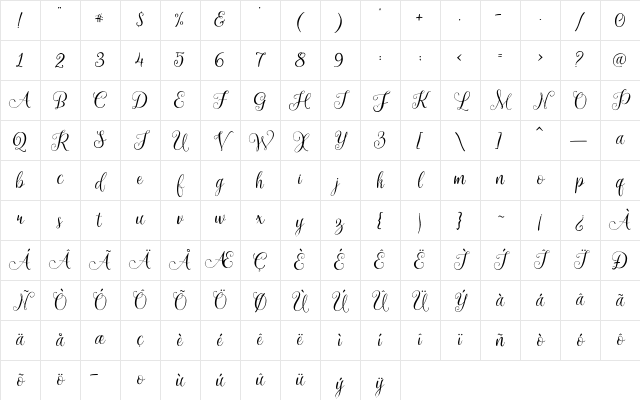
arabella Italic
Foundry: mysunday
Designer: mysunday
Design Context for arabella
arabella is a composed and adaptable typeface that performs quietly and consistently across a wide range of design contexts. The slanted form adds forward momentum and visual energy.
Pro Tip: Use arabella for emphasis, pull quotes, and subheadings where its slanted energy can add rhythm to the layout.